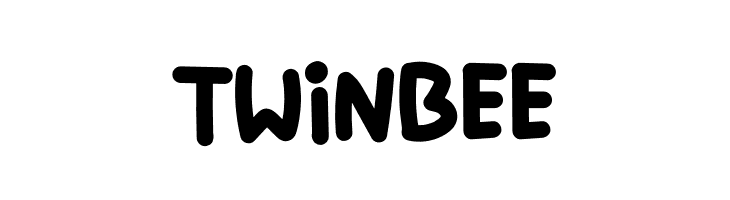
( Fonts by Mr.Soon Design )
A playful, bold font with a rounded, hand-drawn style.
( Fonts by Pinisiart )
A bold, playful font with a quirky, hand-drawn style.
A playful, bold handwritten font with a casual and energetic style.
A playful handwritten font with a friendly and casual style.
( Fonts by billyargel.blogspot.com - Billy Argel )
A bold, brush-style font with dynamic, handcrafted strokes.
A dynamic, twisted font with sharp, angular edges and a modern feel.
A whimsical, twisted font with a spooky, supernatural vibe.